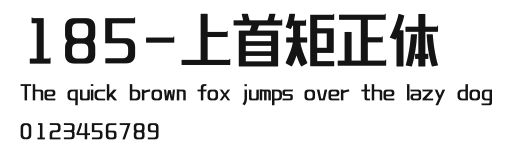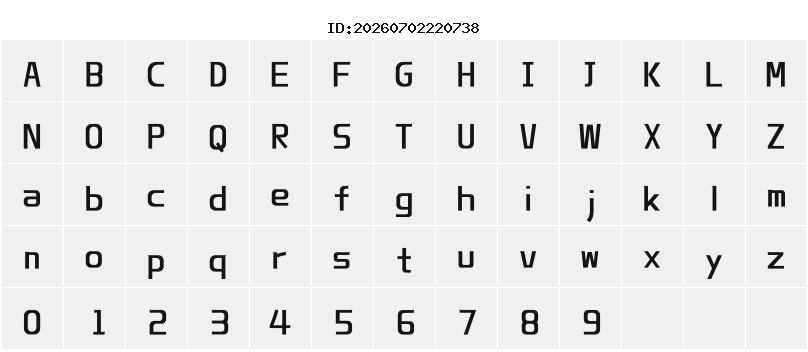
185-上首矩正体 Preview
About 185-上首矩正体.ttf
185-上首矩正体.ttf is a modern, elegant sans-serif font designed for ultimate readability and visual harmony. Perfect for branding, headlines, web design, and print materials.